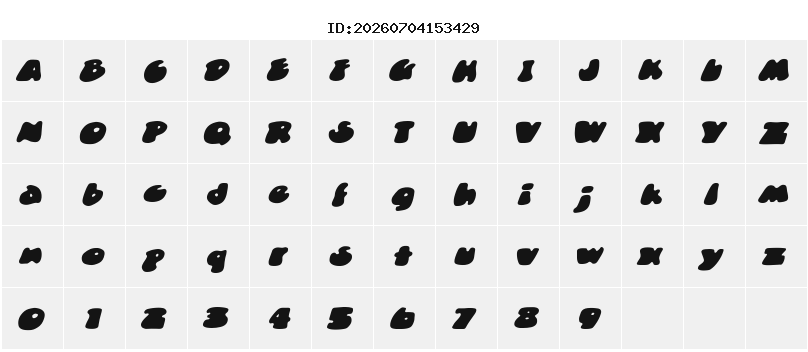
• Font Name: DunceCap BB
• Designer: Nate Piekos
About DunceCap BB.ttf
DunceCap BB.ttf is a modern, elegant sans-serif font designed for ultimate readability and visual harmony. Perfect for branding, headlines, web design, and print materials.